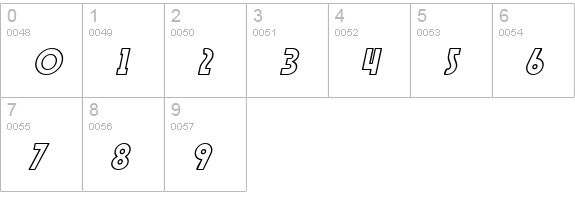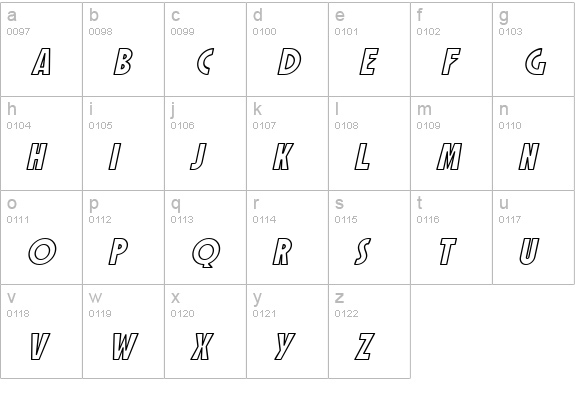
SF Speakeasy Outline Oblique Font Details
SF Speakeasy Outline Oblique is a distinctive, italic variant in the SF typeface family \xE2\x80\x94 well suited to design and typography projects.
SF Speakeasy Outline Oblique font is a visually striking and dynamic typeface that will add a touch of elegance and sophistication to any design project. With its unique combination of sharp angles and sleek curves, this font captures the essence of the Art Deco era, bringing a sense of nostalgia and glamour to your work. The outline style of SF Speakeasy adds an extra layer of depth and dimension, making it perfect for creating eye-catching headlines, logos, and signage. Its oblique slant adds a subtle sense of movement, giving your designs a modern and contemporary feel. What sets SF Speakeasy Outline Oblique font apart is that it is not only visually stunning, but also freely available to download at FontsMarket.com. This means that you can easily incorporate this font into your projects without any cost, allowing you to unleash your creativity without any constraints. Whether you're designing for a vintage-inspired brand, a retro-themed event, or simply want to add a touch of sophistication to your work, SF Speakeasy Outline Oblique font will not disappoint. Its versatility and timeless appeal make it a must-have for designers looking to make a bold statement. So why wait? Go ahead and download SF Speakeasy Outline Oblique font for free at FontsMarket.com and elevate your designs to new heights of style and elegance.